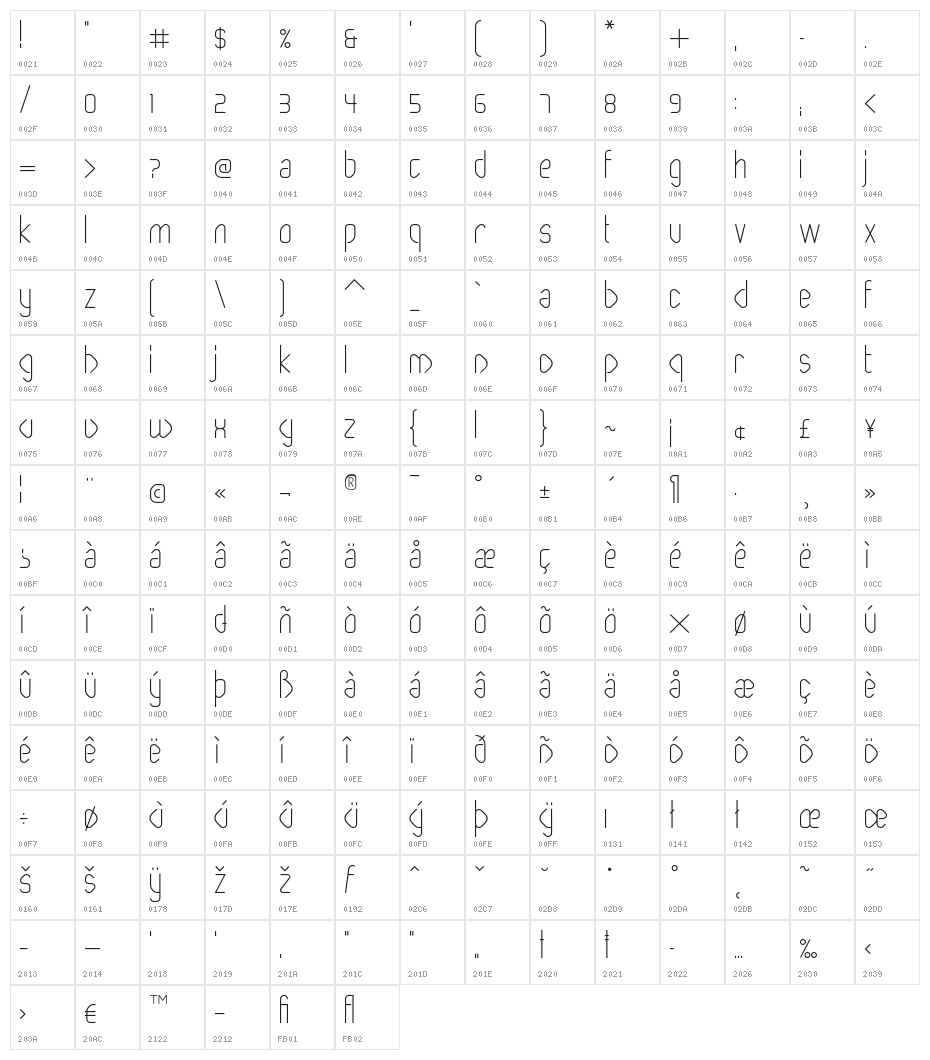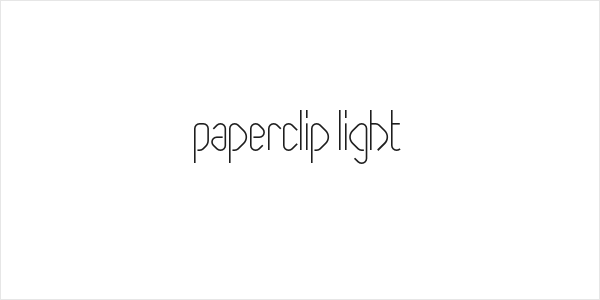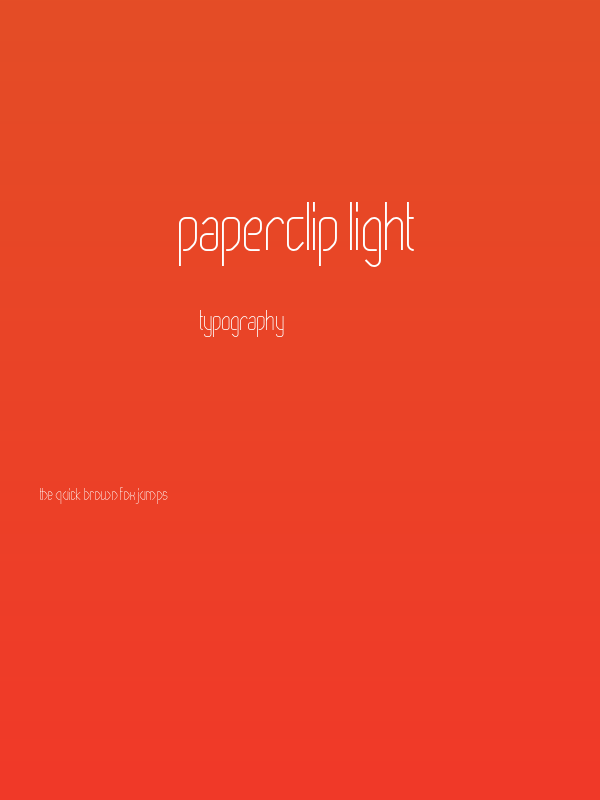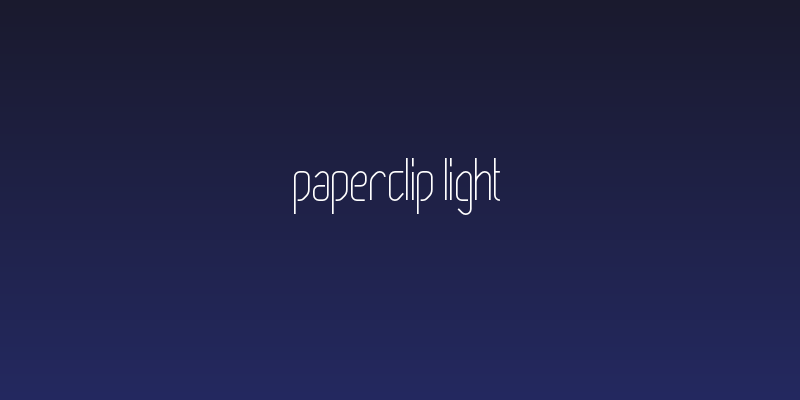
Paperclip Light Font
Paperclip Light Description
This font features a sleek, modern design with thin, uniform lines that create a minimalist aesthetic. The characters are elongated and slightly condensed, giving it a unique, futuristic appearance. The uppercase and lowercase letters maintain a consistent height, enhancing readability while preserving the font's distinctive style. The numerals and special characters are crafted with the same attention to detail, ensuring a cohesive look across all text elements. Its geometric structure and clean lines make it suitable for contemporary design projects.
Use CaseLogos, Headlines, Digital interfaces
Proposed ProjectsIdeal for tech branding, modern advertising, minimalist posters, and digital interfaces.